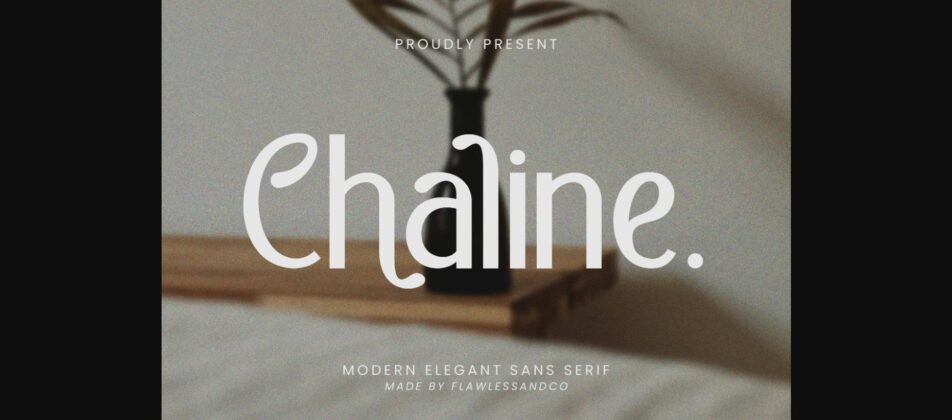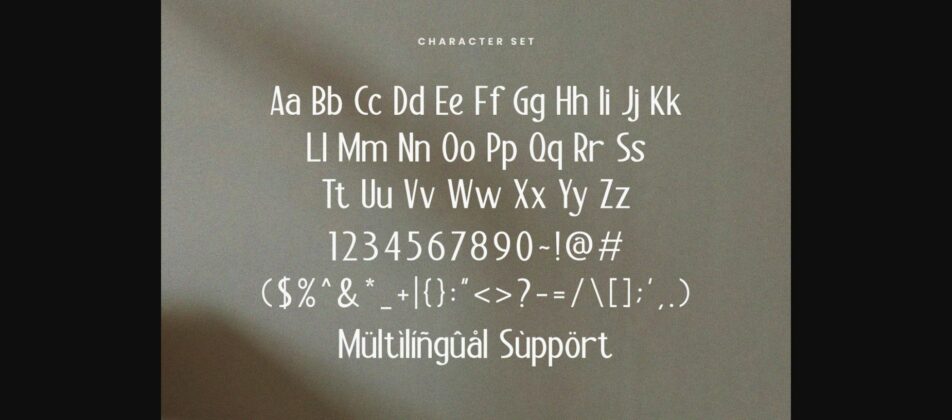
About Chaline Font
Introducing “Chaline” – A Modern Elegant Sans Serif Font. Chaline is a refined and contemporary sans serif font that seamlessly blends sophistication with versatility. Its clean lines and subtle curves evoke a sense of elegance, making it the perfect choice for projects that demand a touch of modern grace. Whether you’re designing for luxury branding, editorial layouts, elegant invitations, or stylish social media graphics, Chaline is your go-to font to add a touch of class.